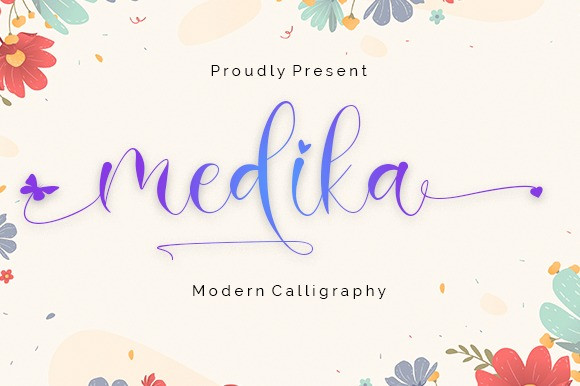
Medika Font
Medika Font by Nabila Graphic 24,111 downloads
Medika Font
Medika Calligraphy Font is a delicate, elegant and flowing handwritten font. It has beautiful and well balanced characters and as a result, it matches a wide pool of designs. This font is PUA encoded which means you can access all of the glyphs and swashes with ease!